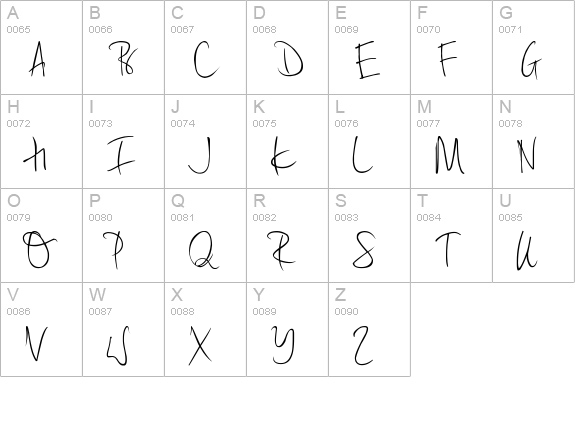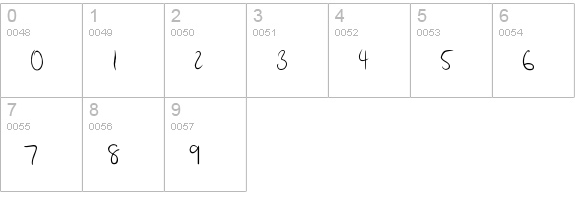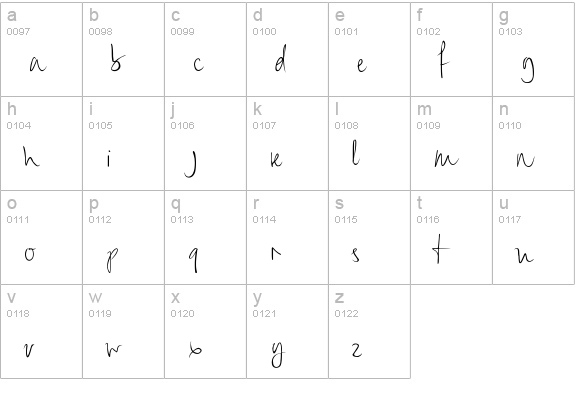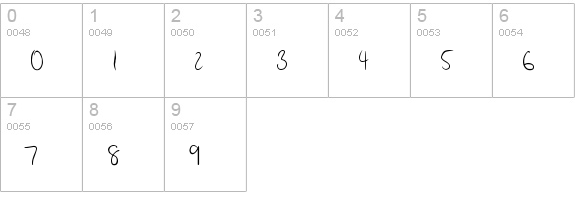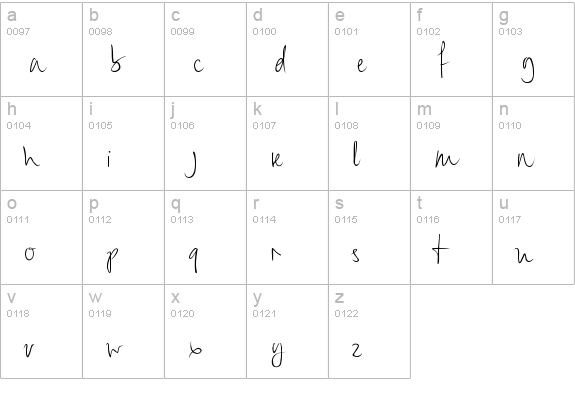
Adele's Handwriting font is a charming and elegant typeface that exudes a sense of sophistication and grace. With its delicate strokes and flowing lines, this font captures the essence of beautiful cursive handwriting. Each letter is carefully crafted to create a seamless and harmonious design that will bring a touch of elegance to any project.